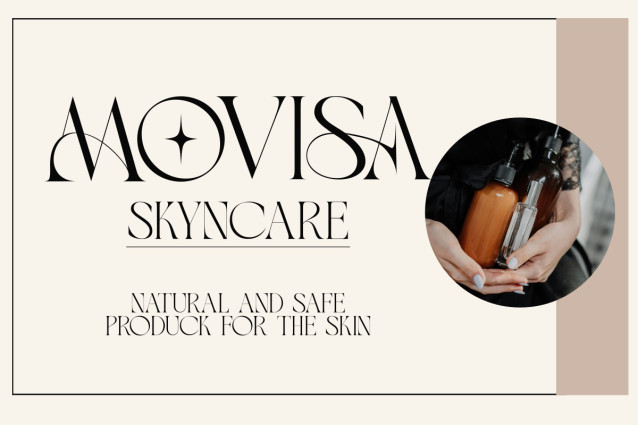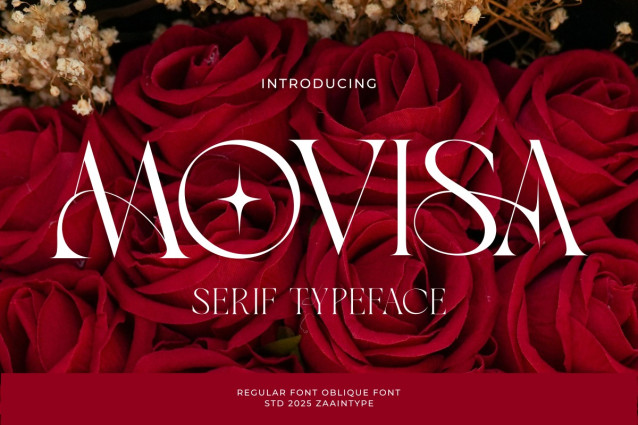
Movisa Font
Movisa Font is a refined serif typeface that blends classic elegance with a touch of modern sophistication. Featuring two distinct styles — Regular and Oblique — Movisa offers versatility for editorial layouts, branding, and timeless design projects. Its fine contrast and smooth curves create a graceful reading experience, while its subtle details bring personality and charm to headlines and text alike